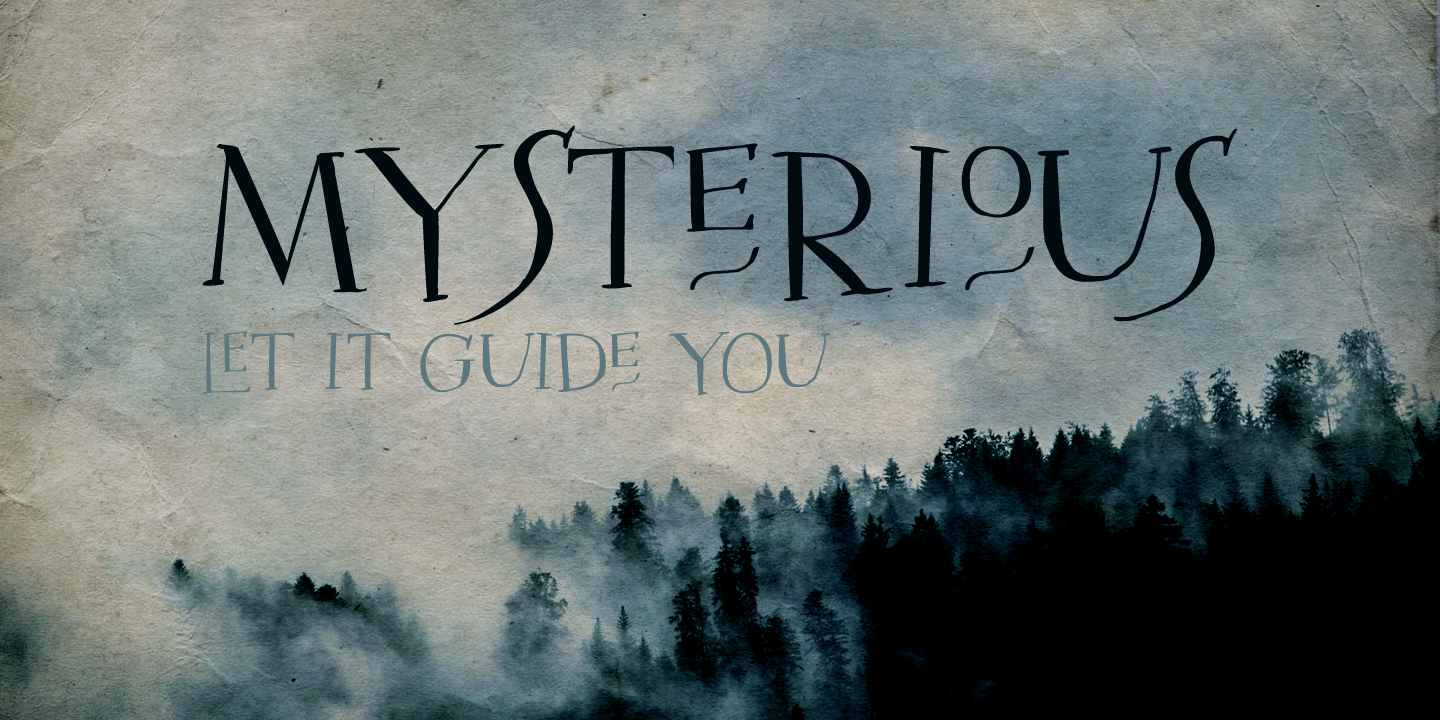
Mysterious Font is ideal for various design applications including supernatural thriller book covers, occult bookstore branding, mystical entertainment venues, esoteric spiritual centers, enigmatic art installations, paranormal investigation materials, cryptic puzzle games, and atmospheric horror projects that require enigmatic sophistication and supernatural allure.
What makes Mysterious Font truly exciting is its captivating ability to evoke the unknown and channel the compelling energy of hidden realms that exist beyond ordinary perception, creating an immediate sense of intrigue and drawing viewers into the shadowy world where secrets whisper and mysteries unfold. This enigmatic typeface features letterforms with subtle ethereal qualities that seem to shift and change like shadows at twilight, evoking images of ancient manuscripts, forbidden knowledge, and the liminal spaces where reality blends with the supernatural. The font's mystical character reflects the allure of the unknown and the irresistible pull of mysteries waiting to be discovered, making it perfect for brands that want to communicate intrigue, supernatural authenticity, and the compelling magnetism of hidden truths. Its enigmatic appearance creates immediate connections with mystery, magic, and otherworldly experiences.
The Mysterious Font family includes multiple weights and supernatural variations designed to enhance enigmatic communication. The collection features Light, Regular, Medium, and Bold weights, each maintaining the font's characteristic mysterious appeal while offering different levels of supernatural presence. The family also includes alternate characters with varying mystical effects, ethereal elements that simulate otherworldly atmospheres, and stylistic sets that create haunting text arrangements reflecting the complexity of supernatural phenomena. Additional features include contextual alternates and mystical ligatures that enhance the authentic, enigmatic appearance.
Entertainment and spiritual professionals consistently choose Mysterious Font Free Download for projects requiring authentic supernatural character and mystical credibility. The font's enigmatic nature makes it particularly effective for entertainment companies, spiritual organizations, and creative projects targeting audiences who appreciate mystery, supernatural themes, and esoteric knowledge. Its excellent readability across various applications ensures effective communication while maintaining the distinctive mysterious character that conveys supernatural authority and mystical sophistication.
The advanced OpenType capabilities of Mysterious Font include contextual alternates, stylistic sets, and comprehensive character support that accommodates mystical terminology and supernatural expressions while preserving the font's authentic enigmatic character. The technical precision ensures consistent mysterious appearance across different supernatural applications and mystical platforms.
For creative professionals seeking a typeface that embodies genuine supernatural heritage and mystical sophistication, Mysterious Font offers unparalleled enigmatic appeal and otherworldly elegance. Its ability to convey supernatural authority while maintaining functional communication makes it invaluable for entertainment companies, spiritual organizations, and mystery-themed brands. The font's distinctive mysterious character ensures memorable supernatural impact across all applications, creating powerful visual identity systems that celebrate the allure of the unknown and the compelling magnetism of mysteries that captivate human imagination and inspire exploration of realms beyond ordinary understanding.